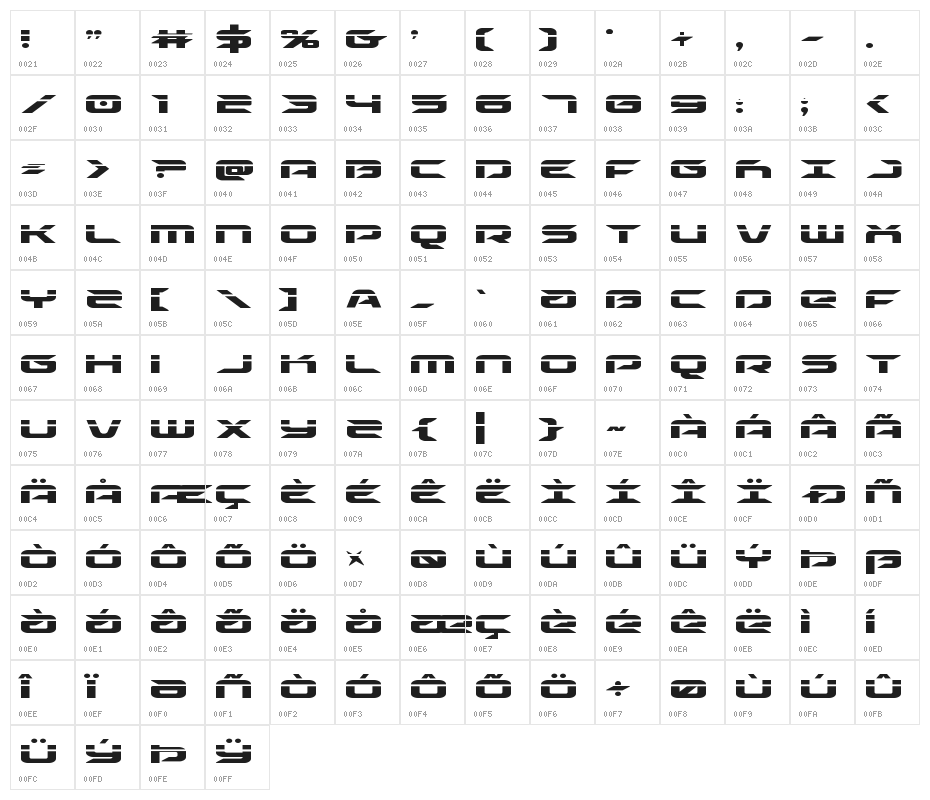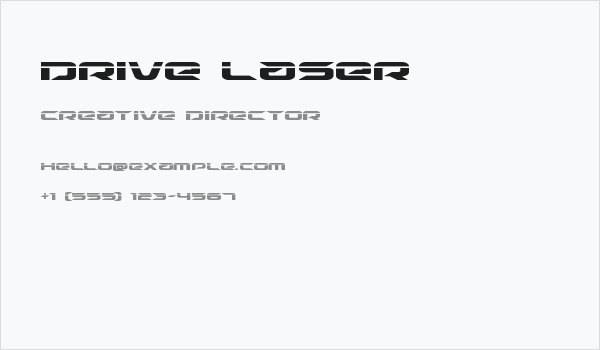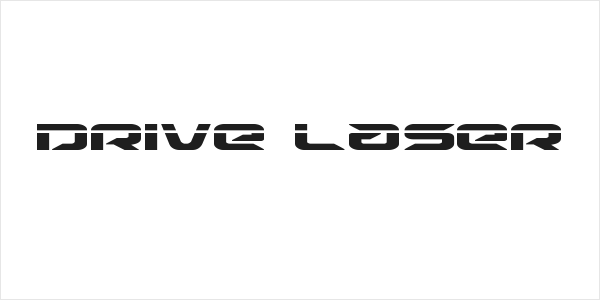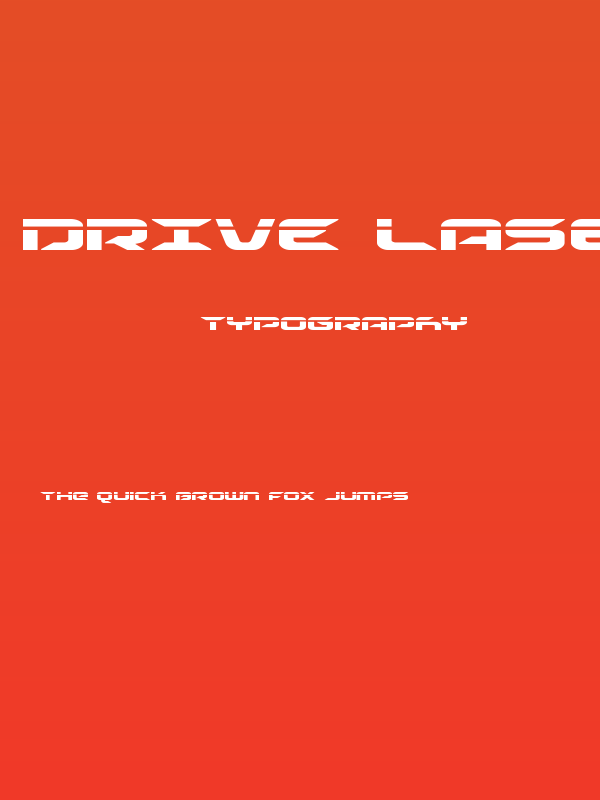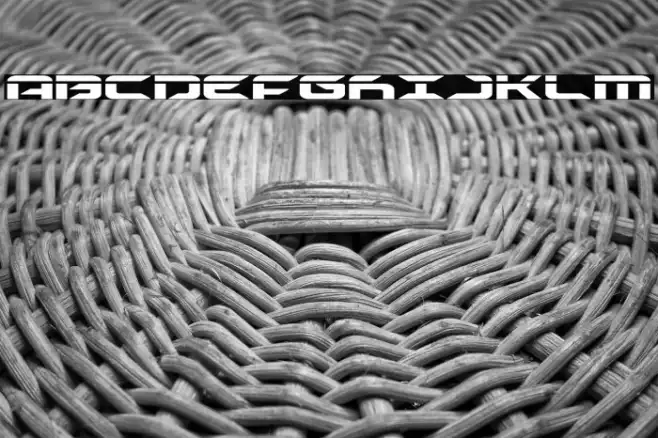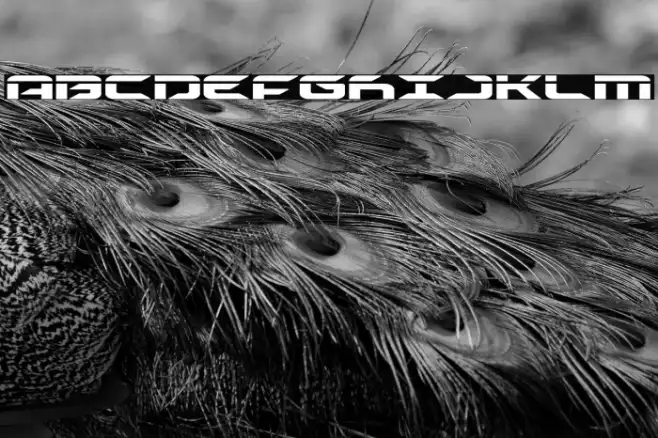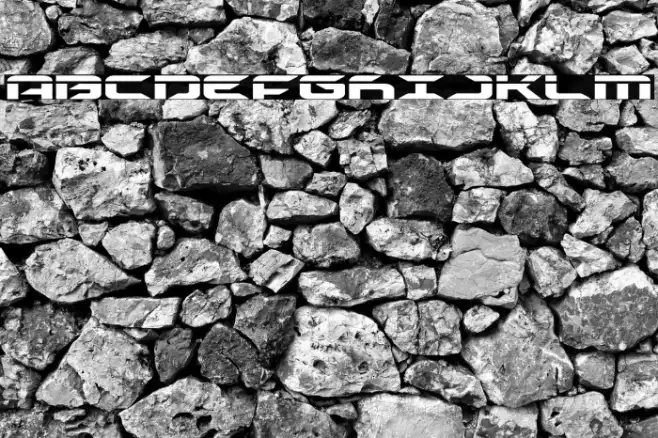
Drive Laser Font
Drive Laser Description
This font features a futuristic and angular design, characterized by its bold and geometric letterforms. The characters are constructed with sharp edges and a distinct stencil-like appearance, giving it a modern and technological feel. The uppercase and lowercase letters maintain a consistent style, with uniform stroke widths and a slightly condensed structure. The numerals and special characters follow the same design principles, ensuring a cohesive look across all glyphs. This font's unique style makes it suitable for projects that require a cutting-edge and dynamic aesthetic.
| Proposed Projects | Ideal for sci-fi themed designs, technology branding, video game titles, and modern posters. |